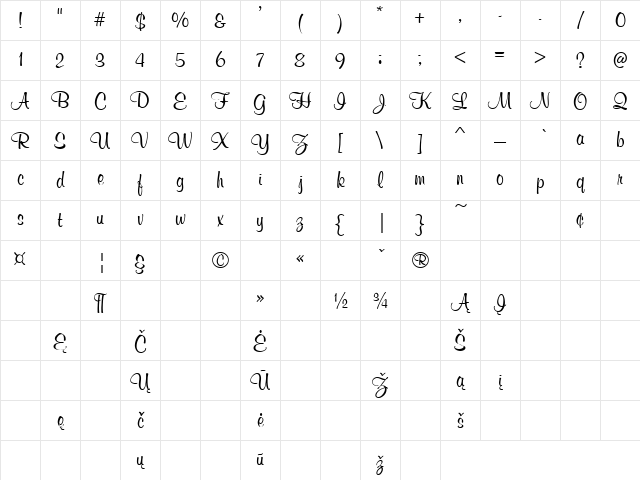
Complete JS_Mural Script glyph index. Displaying only characters natively supported by JS_Mural Script font.
JS_Mural flows with the natural rhythm of handwritten lettering, making it ideal for designs that call for warmth and personal expression.
Font Pairing: Combine JS_Mural with a simple geometric sans for maximum contrast - the tension between flowing curves and clean structure is a classic typographic pairing.
Pro Tip: Use JS_Mural for short runs of text - names, titles, or taglines. Extended body copy in script faces tires the eye quickly.